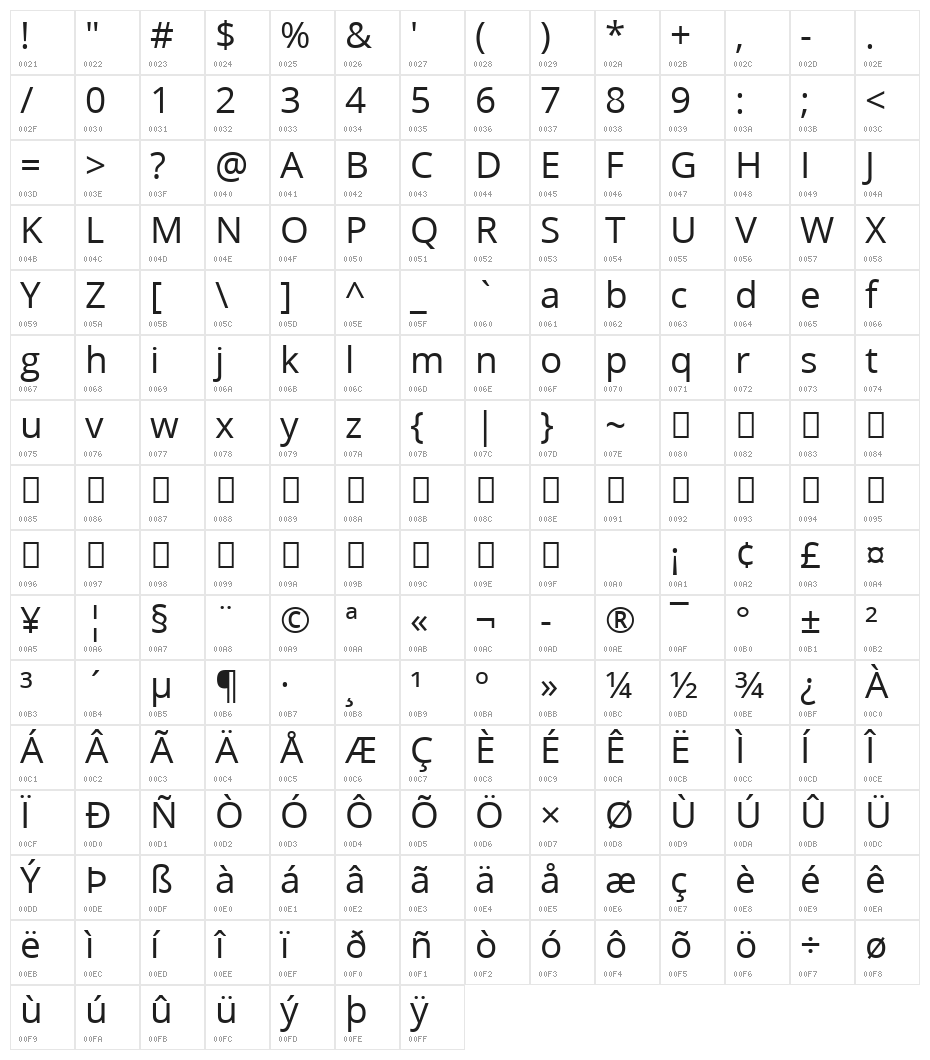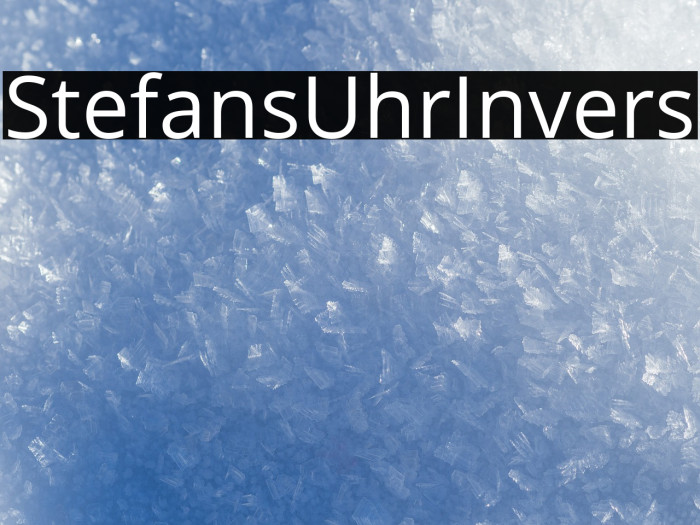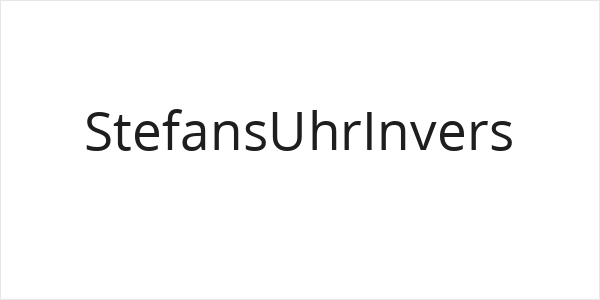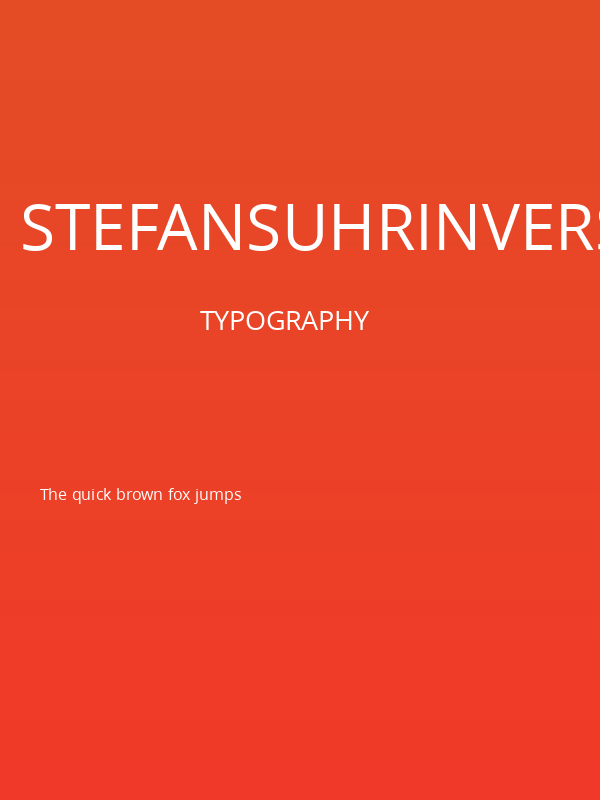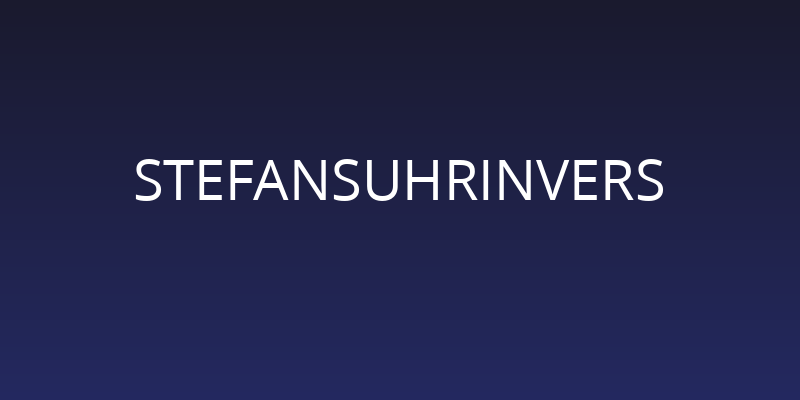
StefansUhrInvers Font
StefansUhrInvers Description
This font features a clean and modern sans-serif design, characterized by its simplicity and readability. The letters are evenly spaced with a consistent stroke width, providing a balanced and harmonious appearance. The uppercase and lowercase letters maintain a uniform height, contributing to its legibility. The numerals are clear and distinct, matching the overall style of the alphabet. Special characters are well-integrated, ensuring versatility in various applications. This font's straightforward design makes it suitable for a wide range of uses, from digital interfaces to print media.
| Proposed Projects | Ideal for web design, user interfaces, corporate branding, and print media. |